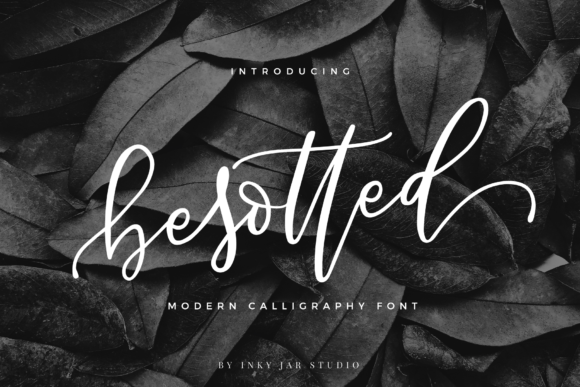
Unlock the Magic of Besotted Script Font
As I sat at my desk, surrounded by scraps of paper and empty coffee cups, I stumbled upon the perfect font to capture the essence of my brand. It was love at first sight – the gentle curves, the playful swashes, and the effortless elegance. I knew right then and there that I had found the perfect match for my business, and it was none other than the Besotted Script Font.
This beautiful font is designed specifically for women entrepreneurs and wedding stationery, making it the perfect choice for those looking to add a touch of whimsy and romance to their brand. With its subtle and curly swashes, as well as a range of ligatures, the Besotted Script Font is a valuable asset for designers looking to create unique and eye-catching designs.
Whether you’re looking to elevate your brand or create stunning wedding invitations, the Besotted Script Font is sure to captivate your audience and leave a lasting impression.
Besotted Script Font Key Features
- Font Type: Script Font, ideal for creative and elegant designs
- Unique Characteristics: Besotted Script features a whimsical, handwritten feel with subtle flair and swashes, making it perfect for adding a touch of personality to your designs
Besotted Script Font Review
Overall, I was excited to dive into the Besotted Script Font, and it didn’t disappoint. Here’s my honest take on this beautiful script font.
- Authentic Feel – The Besotted Script Font has an authentic, handwritten feel that makes it perfect for personal projects, invitations, or anything that needs a touch of elegance.
- Flexibility – This font is highly customizable, allowing you to adjust the size, color, and spacing to suit your design needs.
- Beautiful Ligatures – The font’s ligatures are beautifully crafted, creating a cohesive and polished look that’s sure to impress.
- Font Size Limitations – While the font is highly customizable, it can become difficult to read when used in extremely small sizes.
- Lack of Support – The Besotted Script Font may not be supported by all operating systems or devices, which can lead to compatibility issues.
Overall, I’m impressed with the Besotted Script Font’s elegance and flexibility. While it has some limitations, it’s a beautiful addition to any designer’s toolkit. With careful use and consideration, it can elevate even the most basic designs to new heights.
Use the Besotted Script Font to add a touch of elegance and sophistication to your designs.
Experiment with different font sizes and colors to create a visually appealing effect.
Pair the Besotted Script Font with other fonts to create a unique and eye-catching combination.
Use the Besotted Script Font for:
Birth announcements and baby showers
Special occasion cards and gifts
Branding and marketing materials
Alternatives to Besotted Script Font
Great Vibes is a modern script font that exudes a sense of elegance and sophistication. It’s perfect for designers who want to create a high-end or luxurious feel in their designs. Compared to Besotted Script Font, Great Vibes has a more refined and polished look, making it ideal for branding and advertising materials.
Carolyna Pro is a versatile script font that works well for both formal and informal designs. It’s a great choice for designers who want to add a touch of sophistication to their projects without looking too formal. Compared to Besotted Script Font, Carolyna Pro has a more playful and approachable feel, making it ideal for social media graphics and blog posts.
Alex Brush is a elegant script font that’s perfect for designers who want to create a sense of luxury and sophistication. It’s a great choice for branding and advertising materials, as well as for creating a sense of warmth and intimacy in designs. Compared to Besotted Script Font, Alex Brush has a more refined and polished look, making it ideal for high-end designs.
What is the recommended font size for using the Besotted Script Font?
The recommended font size for the Besotted Script Font is between 12-24 points. This size range provides optimal readability while maintaining the font’s elegant and cursive appearance.